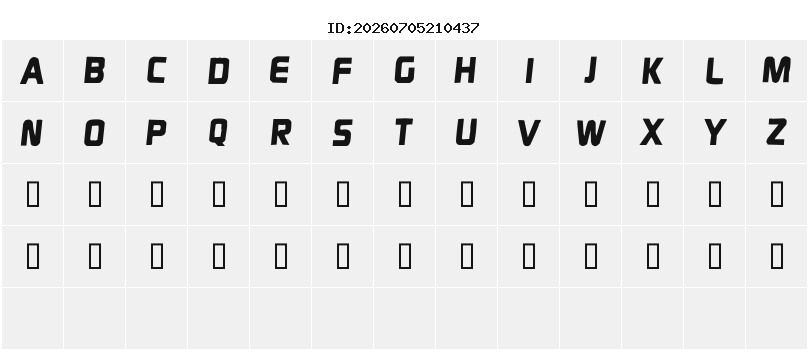
DisPepsi Preview
• Font Name: DisPepsi
• Full Font Name: DisPepsi
About DisPepsi.ttf
DisPepsi.ttf is a modern, elegant sans-serif font designed for ultimate readability and visual harmony. Perfect for branding, headlines, web design, and print materials.